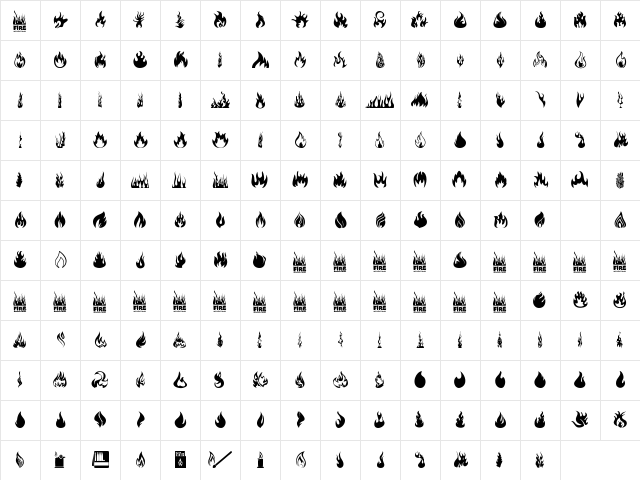
Fire Regular Free Font
Fire Regular
Fire Family
Fire Regular
Design Context for Fire
Fire is a composed and adaptable typeface that performs quietly and consistently across a wide range of design contexts.
Pro Tip: Use Fire in both headline and body roles to test its range before committing to a single application.